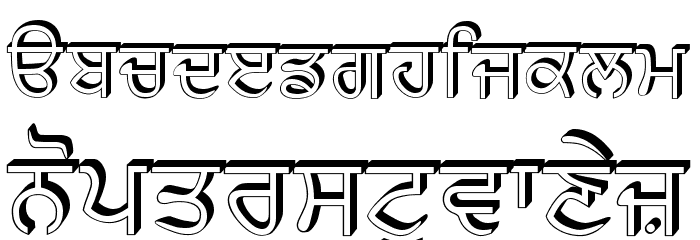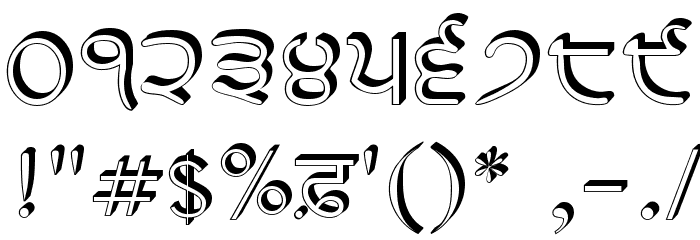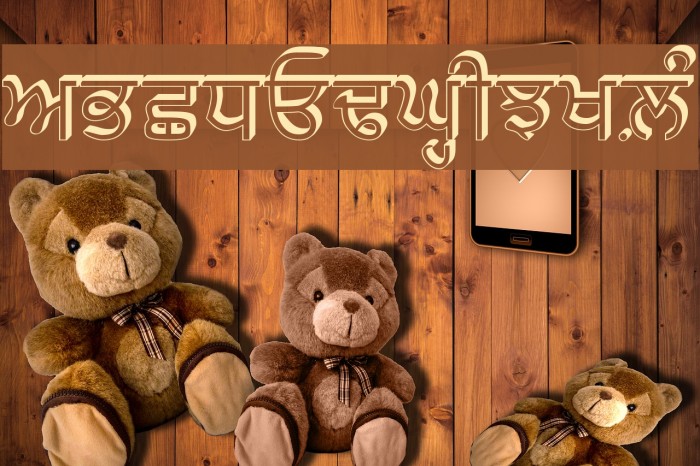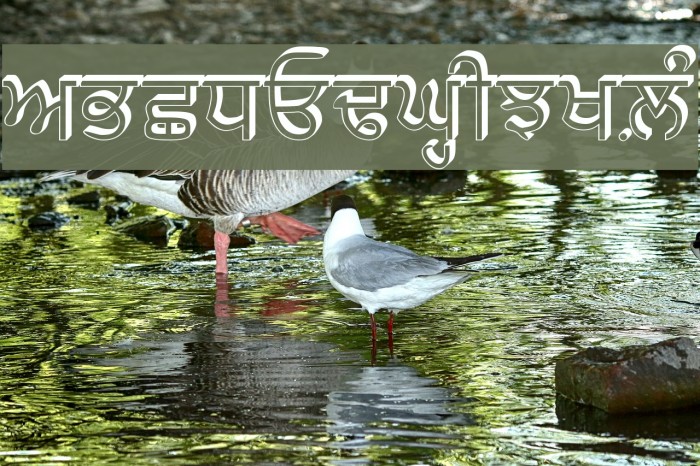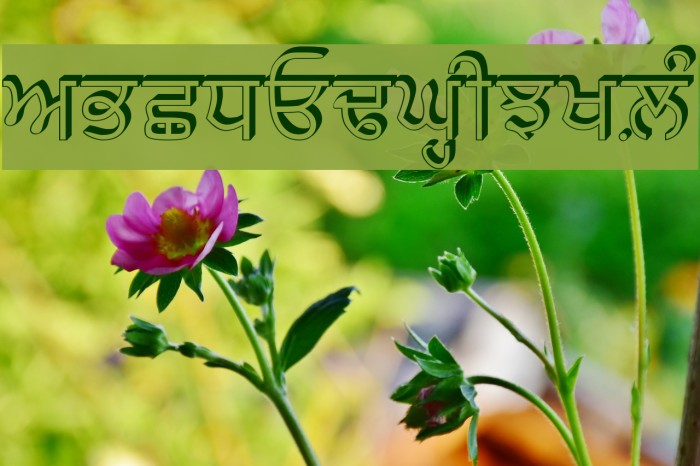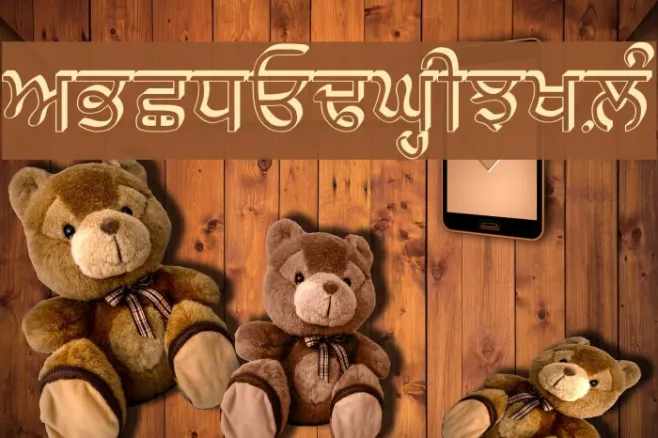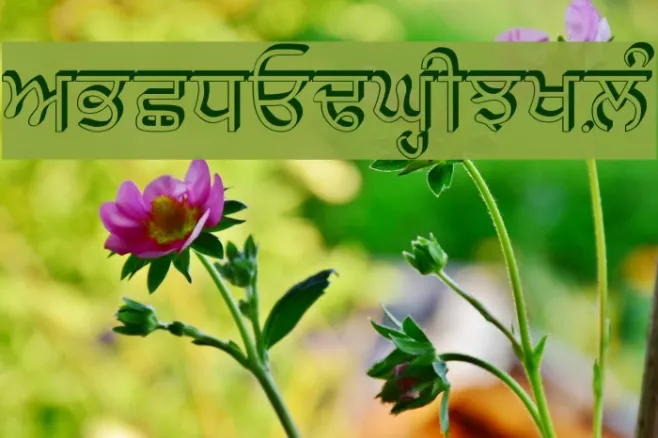
GurbaniRaised Font
This font features a bold and decorative style with a distinct three-dimensional effect. The characters are intricately designed, showcasing a blend of traditional and modern elements. The strokes are thick and consistent, providing a strong visual impact. The font includes a full set of numerals and special characters, making it versatile for various uses. Its unique appearance is enhanced by the shadow effect, adding depth and dimension to the text. The overall design is eye-catching and suitable for projects that require a striking and memorable typeface.
A bold, decorative font with a three-dimensional shadow effect.
- Proposed Projects: Ideal for posters, headlines, logos, and any project needing a bold, decorative touch.